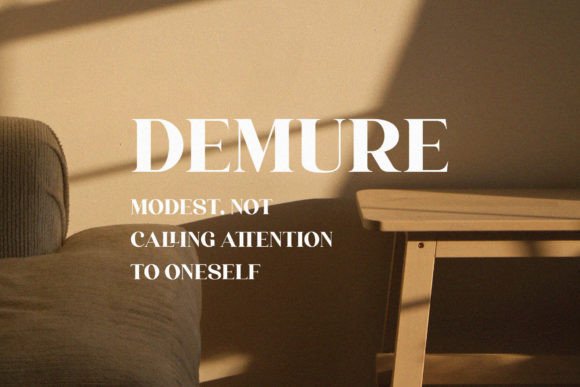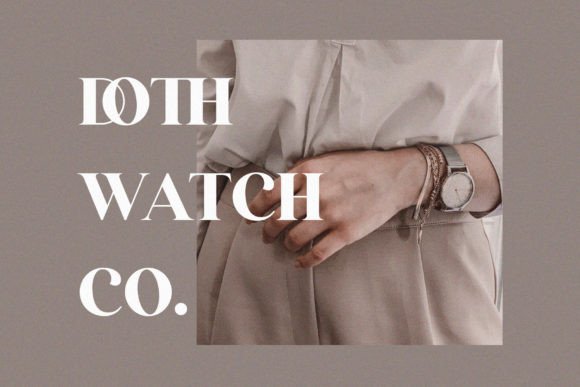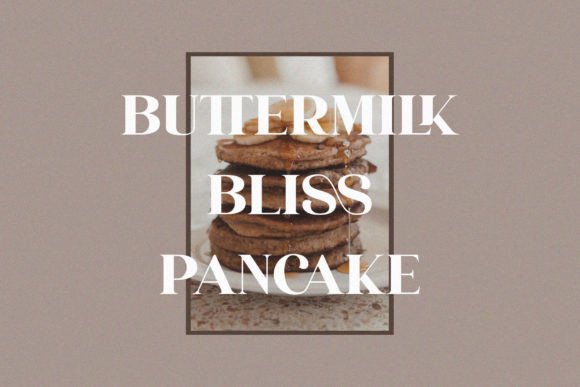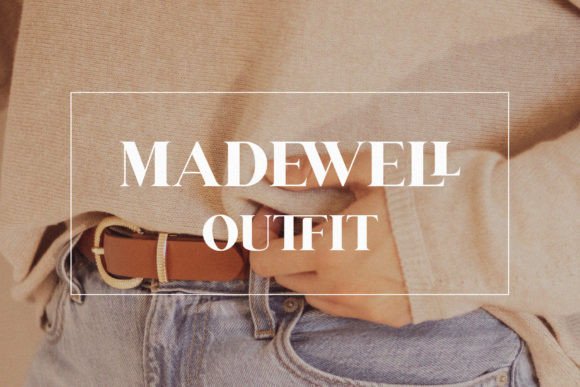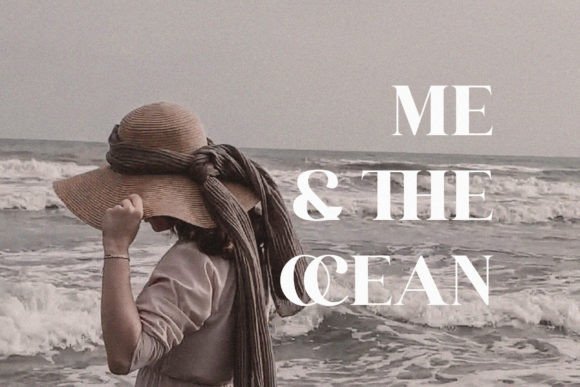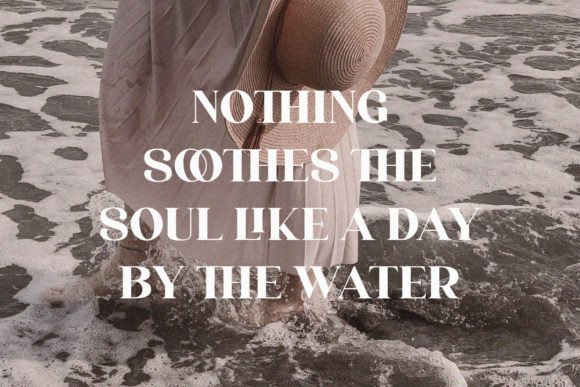
The Elegance of Caliste Font: A Designer’s Delight
I’ll never forget the time I was working on a wedding invitation project, and my client asked for a font that exuded elegance and sophistication. I scoured the internet, tried out countless fonts, but nothing seemed quite right. That was until I stumbled upon Caliste Font. ✨ It was love at first sight! The elegant and bold serif lines, the versatility of its style – it was exactly what I needed to bring my client’s vision to life.
An Honest Review of Caliste Font
- 💕 Elegant and bold serif design that adds a touch of sophistication to any project
- ✅ Incredibly versatile style that suits a wide range of applications, from wedding invitations to social media posts
- 🎨 Beautifully crafted to make your designs stand out from the crowd
- 👍 Easy to read, even in smaller font sizes
While Caliste Font is an amazing addition to any design project, there are a few things to keep in mind: 🤔
- ⚠️ Some of the more intricate details may get lost at very small font sizes
- ⚠️ Not ideal for body text in longer documents, as it’s better suited for headlines and titles
- Experiment with OpenType features, such as ligatures and stylistic alternates, to add an extra touch of elegance to your design
The Backstory of Caliste Font
Caliste Font was designed with the intention of creating a beautiful, elegant serif font that would add a touch of sophistication to any design project. The designer aimed to create a font that was versatile, easy to read, and perfect for a wide range of applications. 💻
| Font Name | Caliste Font |
| Author | Aqeel_Art |
Q: What type of projects is Caliste Font best suited for?
A: Caliste Font is perfect for wedding invitations, stationery, social media posts, and any other project that requires an elegant and sophisticated touch.
Q: Is Caliste Font easy to read?
A: Yes, Caliste Font is designed to be easy to read, even in smaller font sizes. However, it’s best suited for headlines and titles, rather than body text.